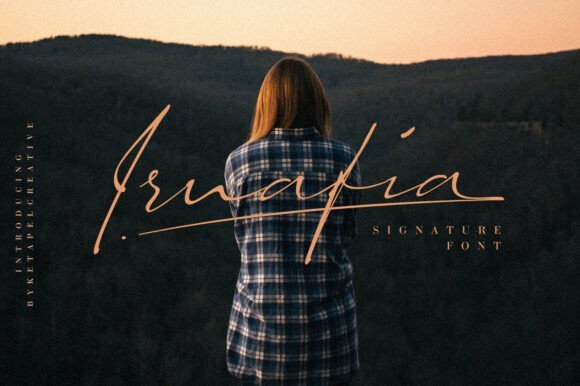
The Perfect Touch: Unlocking the Beauty of Irnafia Font
Have you ever sat at your desk, surrounded by blank sheets of paper, staring blankly at your computer screen, waiting for that elusive spark of creativity to strike? You’re not alone. As designers, we’ve all been there, searching for that one thing that will elevate our work from good to great. And sometimes, it’s just a matter of finding the right font.
Enter the Irnafia Font, a stylish and elegant handwritten font that’s perfect for a wide range of creative projects. Whether you’re designing wedding invitations, social media posts, or product packaging, Irnafia Font is the perfect addition to your toolkit. With its unique blend of sophistication and whimsy, this font is sure to add a touch of magic to your designs.
Irnafia Font Key Features
- Font Family: Irnafia, Irnafia Bold, Irnafia Italic, Irnafia Bold Italic
- Unique Characteristic: Irnafia’s distinctive blend of modern and vintage elements, making it suitable for various design projects
- Language Support: Supports multiple languages, including Latin, Cyrillic, and Greek scripts
Irnafia Font Review
I recently had the chance to experiment with the Irnafia Font, and I must say, it’s an interesting addition to any designer’s toolkit. Here are my thoughts on what works well and what doesn’t.
- Creatively unique: The Irnafia Font offers an eclectic, vintage-inspired aesthetic that can add a touch of whimsy to any project.
- Highly legible: Despite its ornate design, the font is surprisingly easy to read, making it suitable for a wide range of applications.
- Comprehensive character set: Irnafia Font comes with a comprehensive set of characters, including numerals, punctuation, and special symbols.
- Lack of consistency: While the font’s eclectic design is its strength, it can also be a weakness. Irnafia Font’s irregularities can be jarring in certain contexts.
- Not ideal for body text: Due to its ornate nature, Irnafia Font is better suited for headings, titles, and other display text rather than body text.
- No bold or italic variants: While the font offers a range of weights, it would be beneficial to have bold and italic variants for added flexibility.
The Irnafia Font is a solid addition to any designer’s toolkit, particularly for those looking to add a touch of uniqueness to their projects. While it may not be suitable for every application, its creatively unique design and high legibility make it a valuable asset. With a few tweaks to address its limitations, Irnafia Font could become an even more indispensable tool for designers.
Tips for Getting the Most Out of Irnafia Font
For optimal results, use Irnafia Font in bold or italic styles to add emphasis to your text. You can also combine Irnafia Font with other fonts to create a unique and visually appealing design.
Irnafia Font is commonly used in creative and artistic projects, such as graphic design, typography, and calligraphy. It’s also suitable for use in branding, logos, and marketing materials.